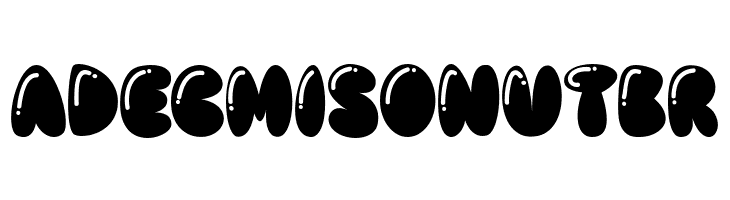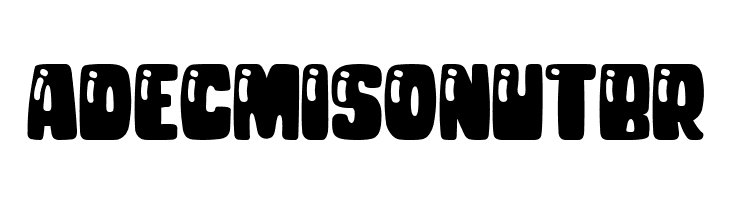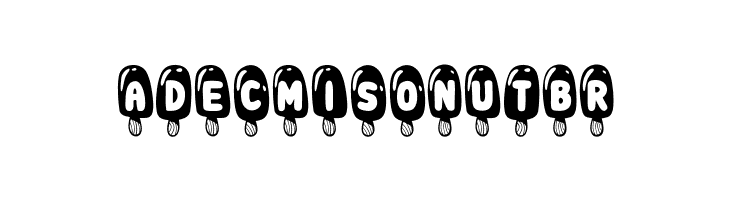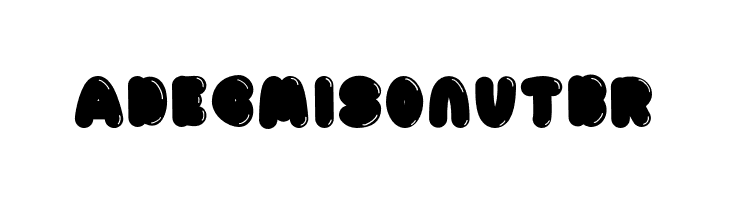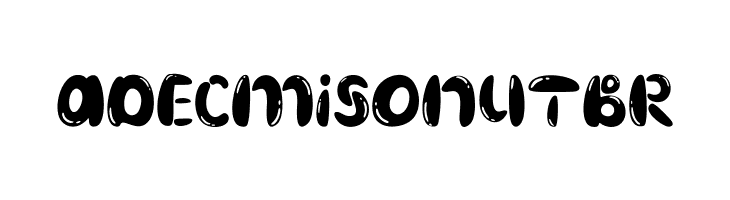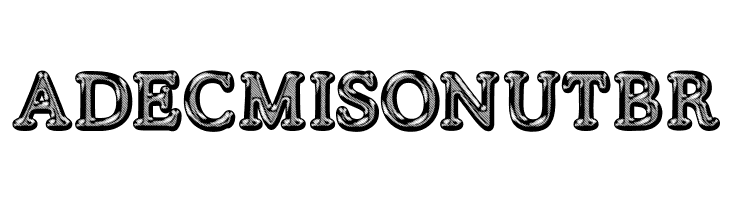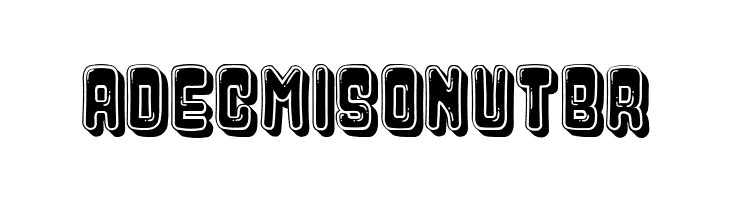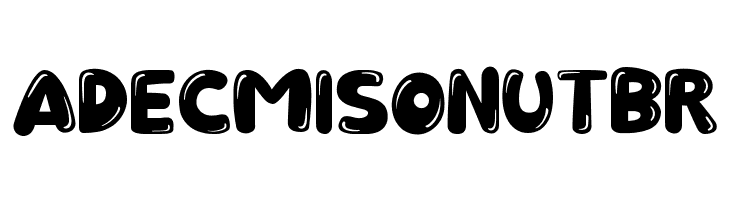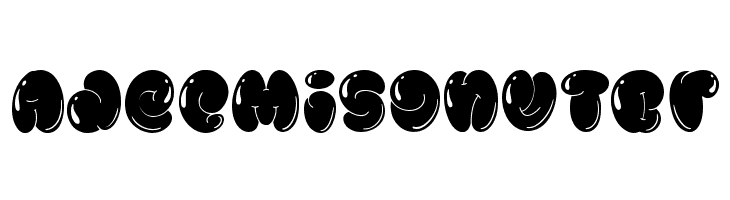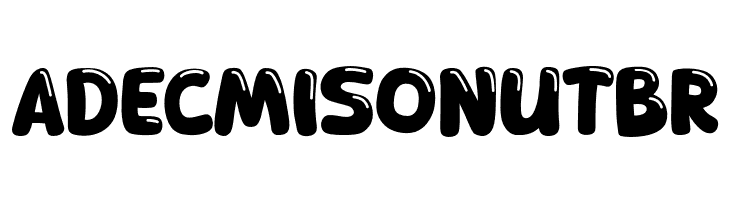
A bold, playful typeface with rounded, bubbly characters and a smooth, glossy appearance.
A playful, bold font with a bubbly, rounded style and glossy appearance.
A bold, playful font with a bubble-like, glossy appearance.
A playful, balloon-like font with bold, rounded characters perfect for festive designs.
A bold, playful font with a shiny outline and three-dimensional effect.
A playful, candy-themed decorative font with each character as a unique sweet treat illustration.
A bold, shiny, and playful font with a three-dimensional outline effect.
A bold, bubble-like font with a playful and modern style.
A playful, bold font with rounded edges and whimsical cut-out details.
A playful, ice cream-themed decorative font with bold, rounded characters.
A playful, bold font with rounded, bubble-like characters perfect for fun and whimsical designs.
A playful, balloon-like font with a bold and whimsical style.
A bold, decorative font with a three-dimensional metallic appearance.
A bold, playful font with a shiny, three-dimensional bubble effect.
A playful, shiny balloon-like font with a bold and rounded appearance.
A bold, bubbly font with a shiny, three-dimensional appearance.
A playful, bold font with rounded, chunky letters and a whimsical touch.
A bold, playful font with rounded, bubble-like characters.
A playful, bold font with a bubbly, liquid-like design.
A playful, bold font with rounded, bubble-like characters.
A playful, bold font with rounded, bubble-like characters perfect for fun designs.
A playful, bold font with rounded, bubble-like characters.
A playful, bold font with rounded, bubbly characters and a whimsical style.